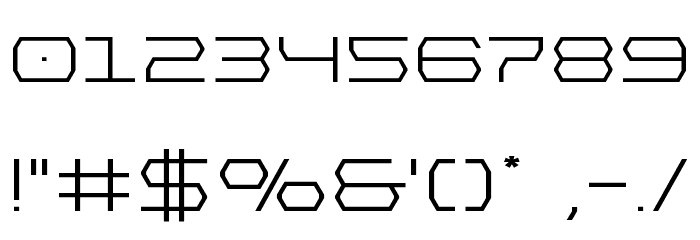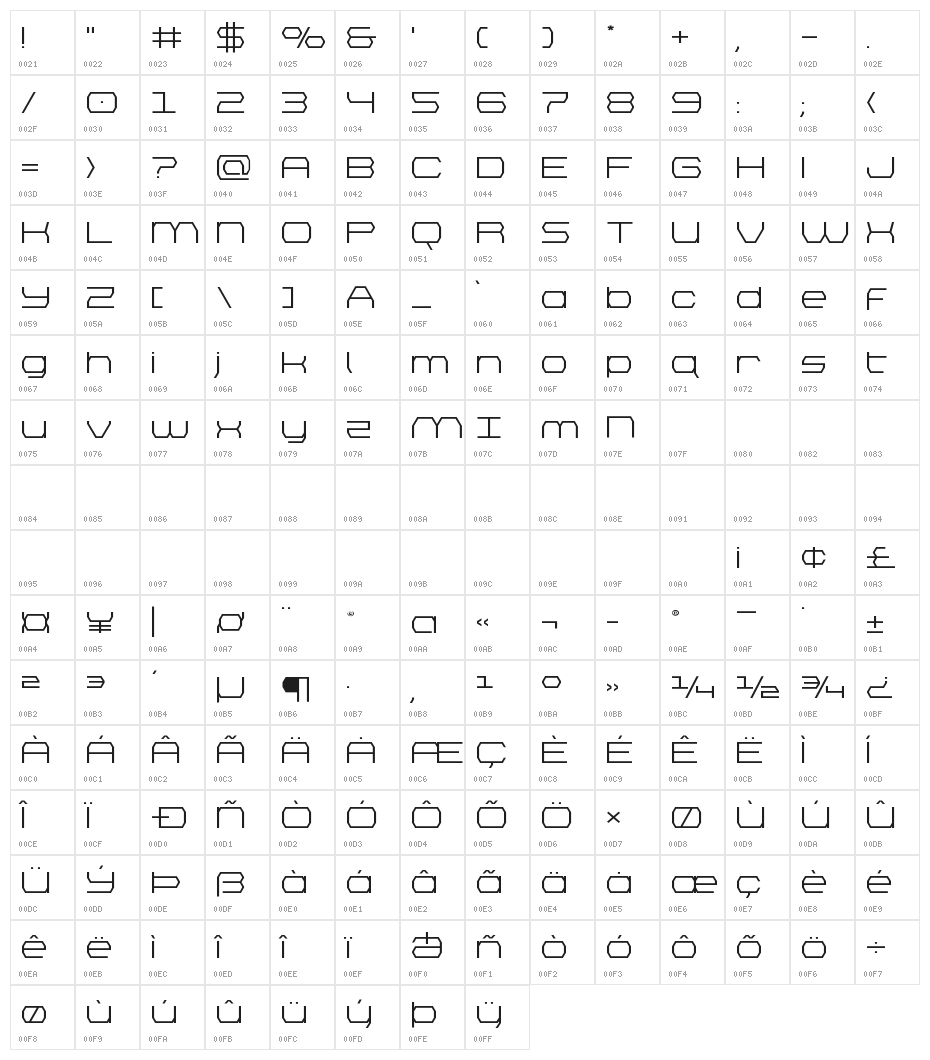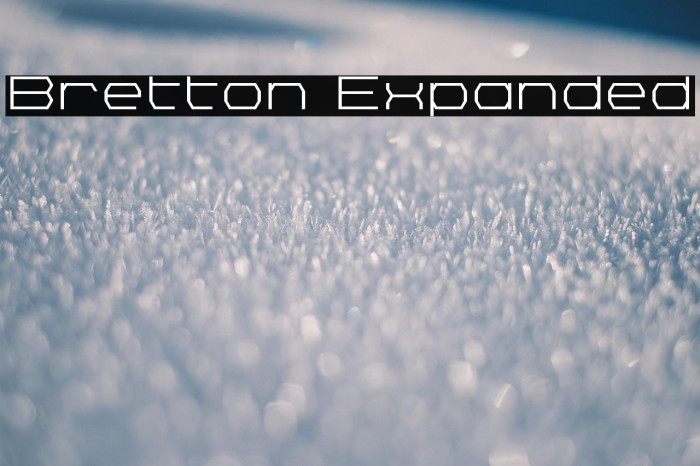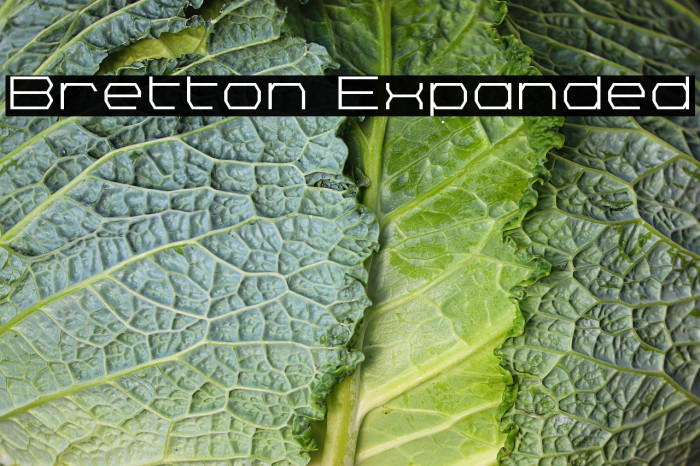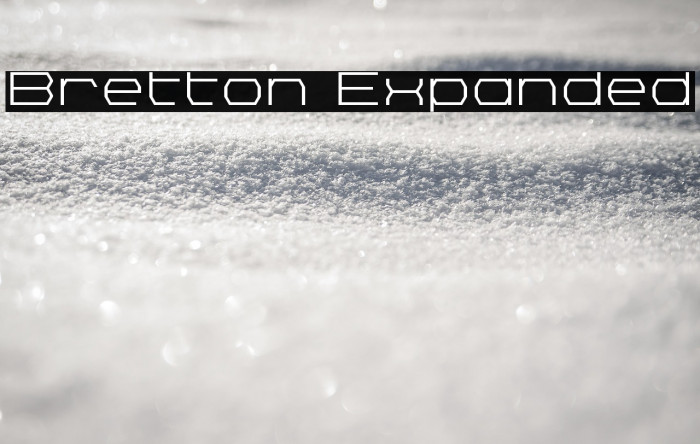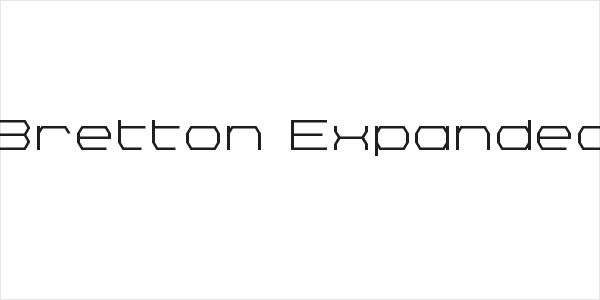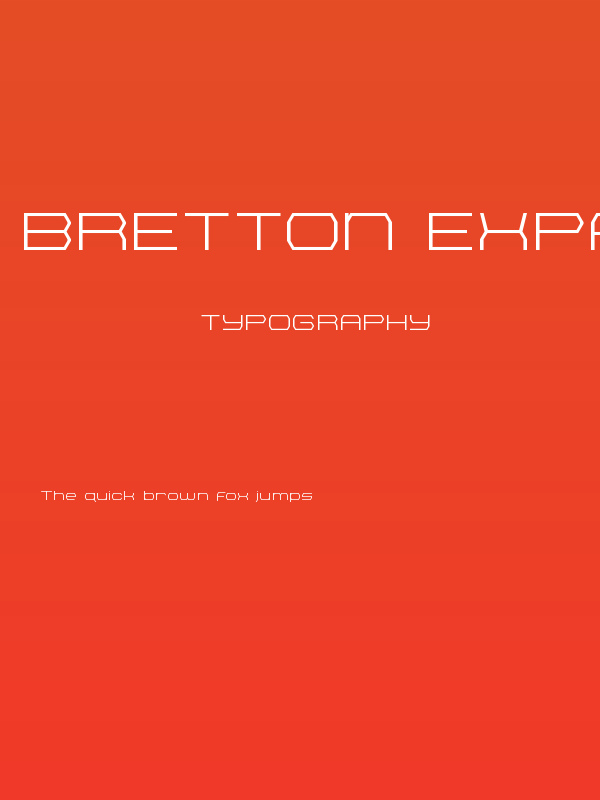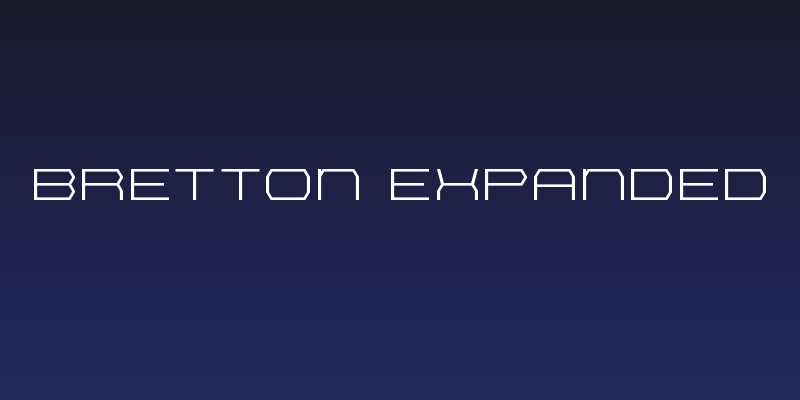
Bretton Expanded Font
Bretton Expanded Description
This font features a geometric and modern design with a distinct expanded width. The characters are constructed with straight lines and sharp angles, giving it a futuristic and technical appearance. The uppercase and lowercase letters maintain a consistent style, with a uniform stroke width that adds to its clean and structured look. The numerals and special characters follow the same design principles, ensuring a cohesive visual identity across all glyphs. This font's unique style makes it suitable for projects that require a contemporary and innovative touch.